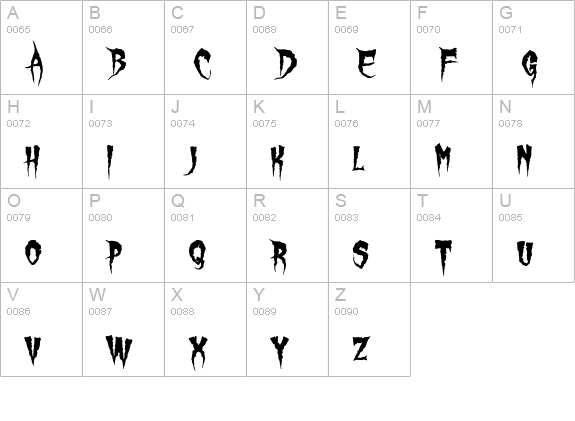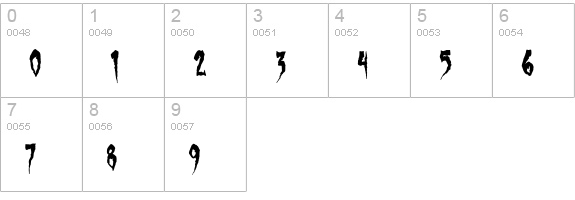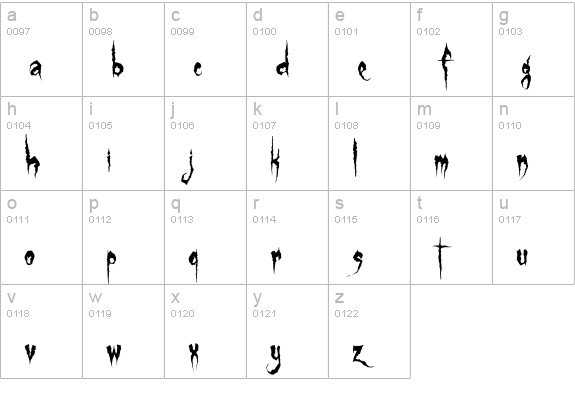
Gypsy Curse Font Details
Introducing Gypsy Curse font, a captivating typeface that effortlessly captures the essence of mystery and intrigue. This enchanting font is sure to transport your designs into a realm of enigmatic beauty, inviting your audience to embark on a journey filled with curiosity and wonder. Gypsy Curse font is imbued with an alluring charm, reflecting the timeless allure of the gypsy culture. Its intricate details and flowing curves evoke a sense of magic, drawing the viewer in with each letterform. Whether you're creating invitations for a mystical event, designing a book cover for a captivating tale, or crafting a logo for an ethereal brand, Gypsy Curse font will add a touch of enchantment to your projects. One of the most extraordinary features of Gypsy Curse font is its versatility. Its unique design allows it to seamlessly blend into various design styles, making it suitable for everything from vintage-inspired aesthetics to modern and elegant designs. This font's versatility makes it an essential tool for designers looking to infuse their projects with a touch of intrigue and allure. But what sets Gypsy Curse font apart is not only its captivating design but also its availability. We are delighted to inform you that Gypsy Curse font is freely available to download at FontsMarket.com. Yes, you read that right - you can now add this incredible font to your collection without spending a dime. FontsMarket.com offers a vast library of free fonts, and Gypsy Curse font is just one of the many gems waiting to be discovered. So why wait? Unleash your creativity and allow the allure of Gypsy Curse font to captivate your audience. Download this mesmerizing typeface today and embark on a design journey filled with mystery, charm, and the undeniable magic of the gypsy culture.